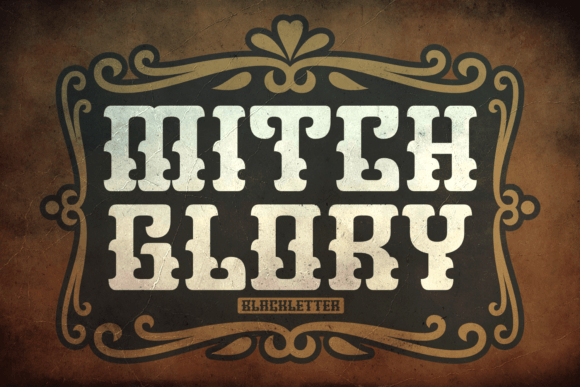
Introducing Mitch Glory Font, the ultimate choice for those seeking the best fonts for H1 headers! Crafted by Creative Fabrica Fonts, this blackletter font is not only visually captivating but also packed with a myriad of features that will elevate your typography game to new heights.
With its thick and stunning design, Mitch Glory Font exudes a timeless charm that instantly grabs attention. Its unique stylized characters add a touch of sophistication and elegance to any creative project you embark on. Whether you're designing a logo, creating a poster, or crafting a website, this font will make your text stand out and leave a lasting impression on your audience.
But what truly sets Mitch Glory Font apart is its PUA-encoded flourishes and embellishments. These elegant details add a touch of finesse to your typography, allowing you to create truly mesmerizing designs. With just a few clicks, you can effortlessly access all the glyphs and unlock a world of possibilities. Let your creativity flow without any limitations!
Not only does Mitch Glory Font offer unparalleled aesthetics, but it also provides a seamless user experience. Its PUA encoding ensures that you can easily navigate through the extensive range of characters, symbols, and ligatures. Say goodbye to the hassle of searching for the perfect combination – Mitch Glory Font has got you covered!
Whether you're a professional designer or a passionate DIY enthusiast, Mitch Glory Font is your ultimate tool for unleashing your creative potential. Let your imagination run wild as you experiment with different styles, sizes, and layouts. Create captivating headlines, striking logos, or eye-catching posters – the possibilities are endless with Mitch Glory Font.